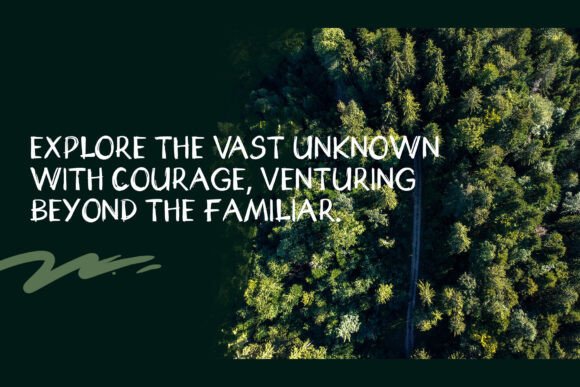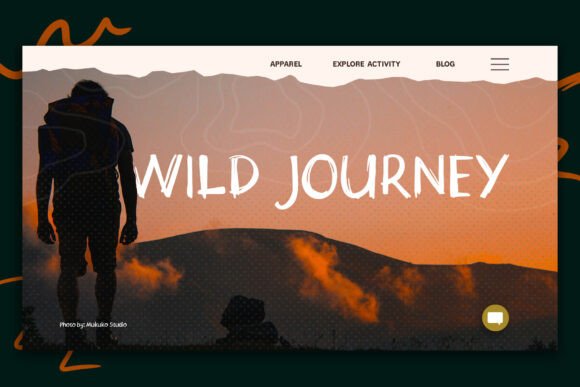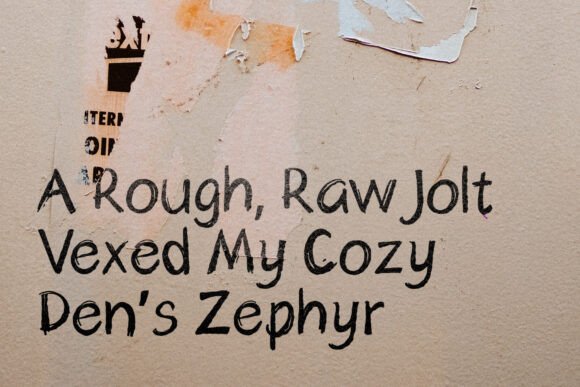
Introduction to Rawan Font
Have you ever stumbled upon a design that sparks your creativity and makes you feel like you’re on top of the world? For designers, that moment of inspiration can be a game-changer. It’s when the perfect combination of style, functionality, and personality comes together to create something truly remarkable. That’s exactly what happens when you discover the Rawan Font – a stunning hand-crafted rough brush display font that embodies the essence of adventure and sport.
Whether you’re working on a high-quality design project or simply looking for a versatile font to elevate your creative work, Rawan Font is an exceptional design resource that’s sure to impress. With its transparent background and high-quality design, this font is perfect for a wide range of applications, from website landing pages to apparel designs and posters.
Key Features of Rawan Font
- Unique and elegant design, perfect for creative projects and design resources.
- High-quality font with a transparent background, allowing for seamless integration into various design elements.
- Available in a single weight, providing a clean and minimalist look for your creative project.
- Resolution-independent, ensuring crisp and clear text display regardless of the output resolution.
- Designed to work well with various font sizes, making it a versatile design resource for any creative project.
Honest Review: Rawan Font
I recently stumbled upon the Rawan Font while searching for a high-quality design resource to use for a creative project. After downloading and testing it, I wanted to share my honest review with fellow designers.
- The Rawan Font offers a unique and elegant script style that’s perfect for adding a touch of sophistication to any design.
- The font is highly customizable, allowing you to adjust the size, color, and even the transparency of the background to suit your design needs.
- The Rawan Font is a script font, which means it may not be suitable for projects that require a clean, sans-serif font.
- The font’s transparency feature can sometimes cause issues with readability, especially when used on a busy background.
Overall, I’m impressed with the Rawan Font’s high quality and versatility. While it may have some limitations, it’s an excellent choice for designers looking to add a touch of elegance to their creative projects.
How to Use Rawan Font
Here are some tips for getting the most out of the Rawan Font: Use it in combination with a high-quality image or graphic to create a stunning visual effect. Use the font in conjunction with a transparent background to create a unique and eye-catching design. Some common use cases for the Rawan Font include logo design, branding, and marketing materials.
Alternatives to Rawan Font
Great Vibes is a high-quality, handwritten font ideal for creative projects that require a touch of elegance and sophistication. It’s perfect for designers looking for a unique, free download to add to their design resource.
Compared to Rawan Font, Great Vibes has a more refined and polished look, making it suitable for a wider range of applications, from wedding invitations to fashion branding.
Alex Brush is a beautiful, script font with a transparent background, making it perfect for designers who want to add a touch of whimsy to their designs. It’s an excellent choice for creative projects that require a high level of sophistication and refinement.